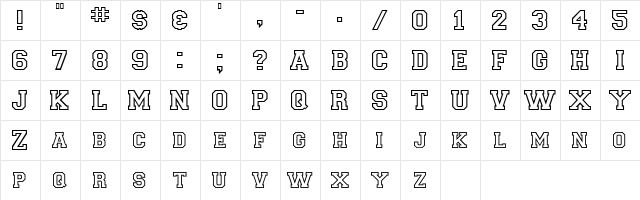
CollegeFLF-Outline Roman
Design Context for CollegeFLF-Outline Typeface
CollegeFLF-Outline brings high-energy athletic personality to the page — its confident, muscular forms are built for impact.
Built for sports team identities, athletic apparel, event posters, and high-energy promotional material.
Pro Tip: CollegeFLF-Outline thrives on contrast — try it large, bold, and tight against a clean background for maximum visual impact.